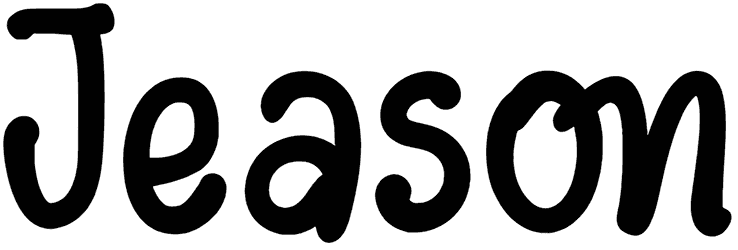
Exposition Font
For an informal and modern makeover, Exposition is the right choice. All the characters in this script font are designed with handwritten illusions and marker effects. You can use this fat marker font for shop signs and product packaging, decorative purposes, children’s books, and cartoon titles.
Based of the Expo Dry Erase Marker logo.
Designed by: Jake Luedecke